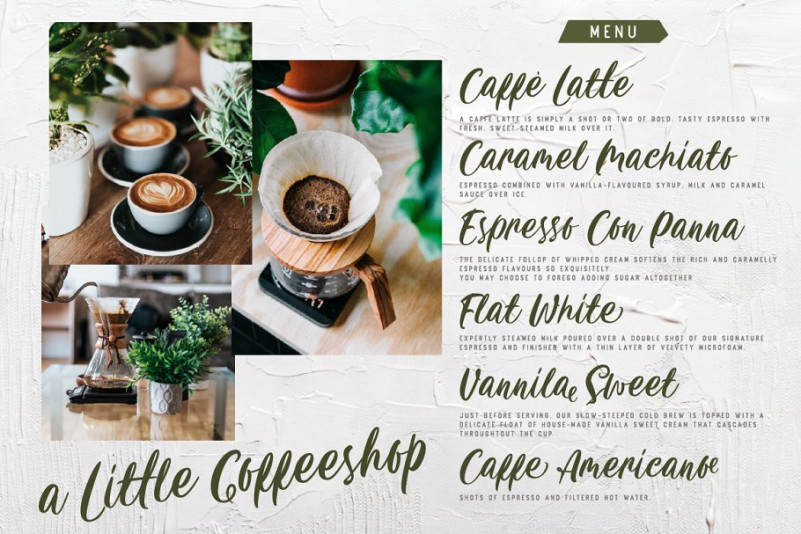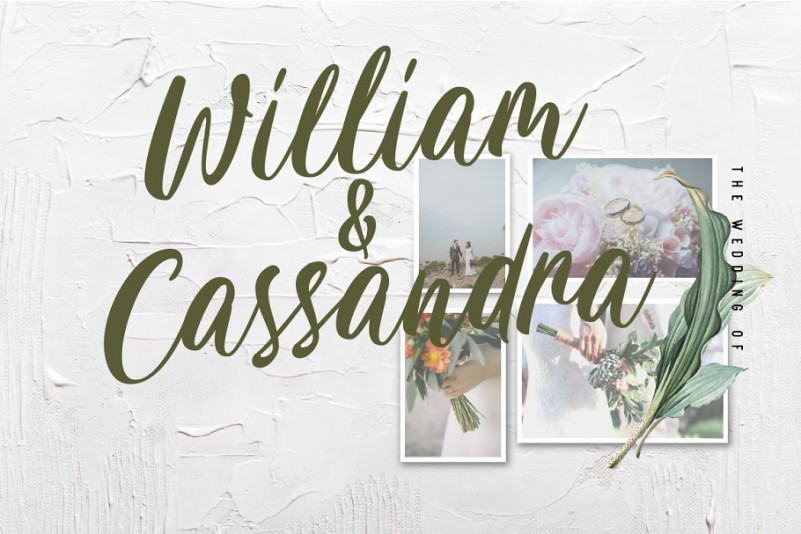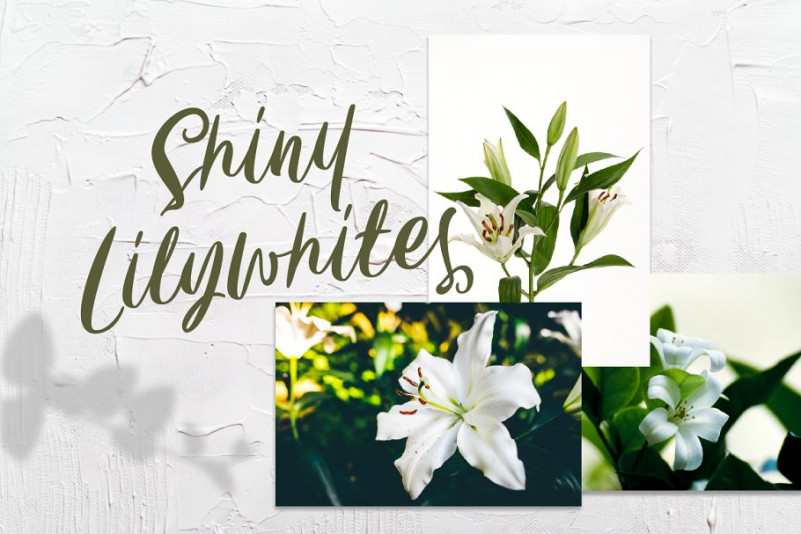
Carily Script Font
Say hello to Carily Script Font. A new fresh handmade calligraphy font. This is a new script calligraphy style font intentionally crafted to give your designs new life! Carily Font designed and shared by Angin Studio. Carily is a modern brush font created based on our hand lettering that inspired by modern brush calligraphy. This font will spread a fresh feel to your design, every letter created carefully and naturally to made it look pleasing to the eyes. Carily Script is perfect for branding, fashion catalog, apparel, wedding invitation, book cover, coffee menu, magazine, but that doesn’t mean you can’t used it for anything else.